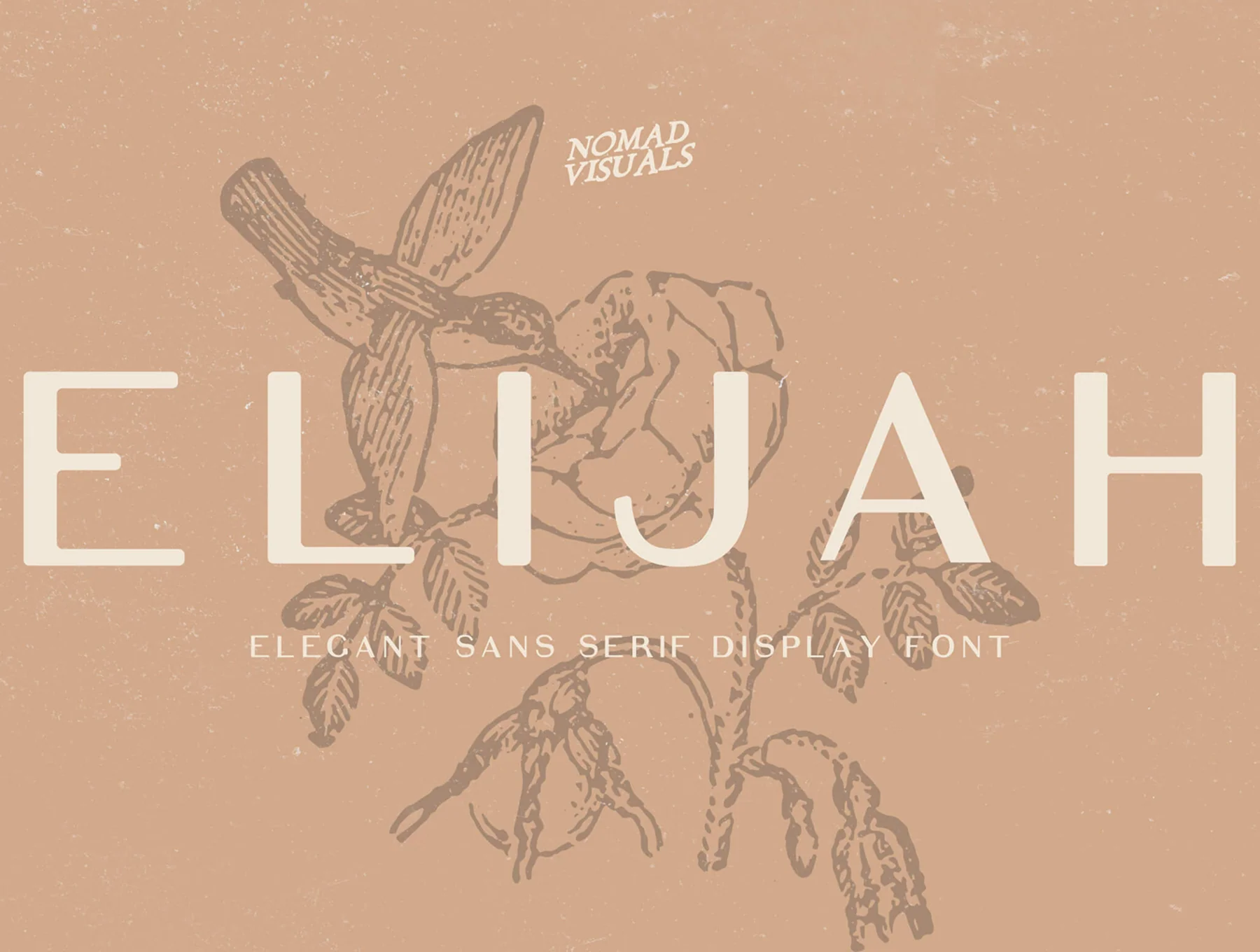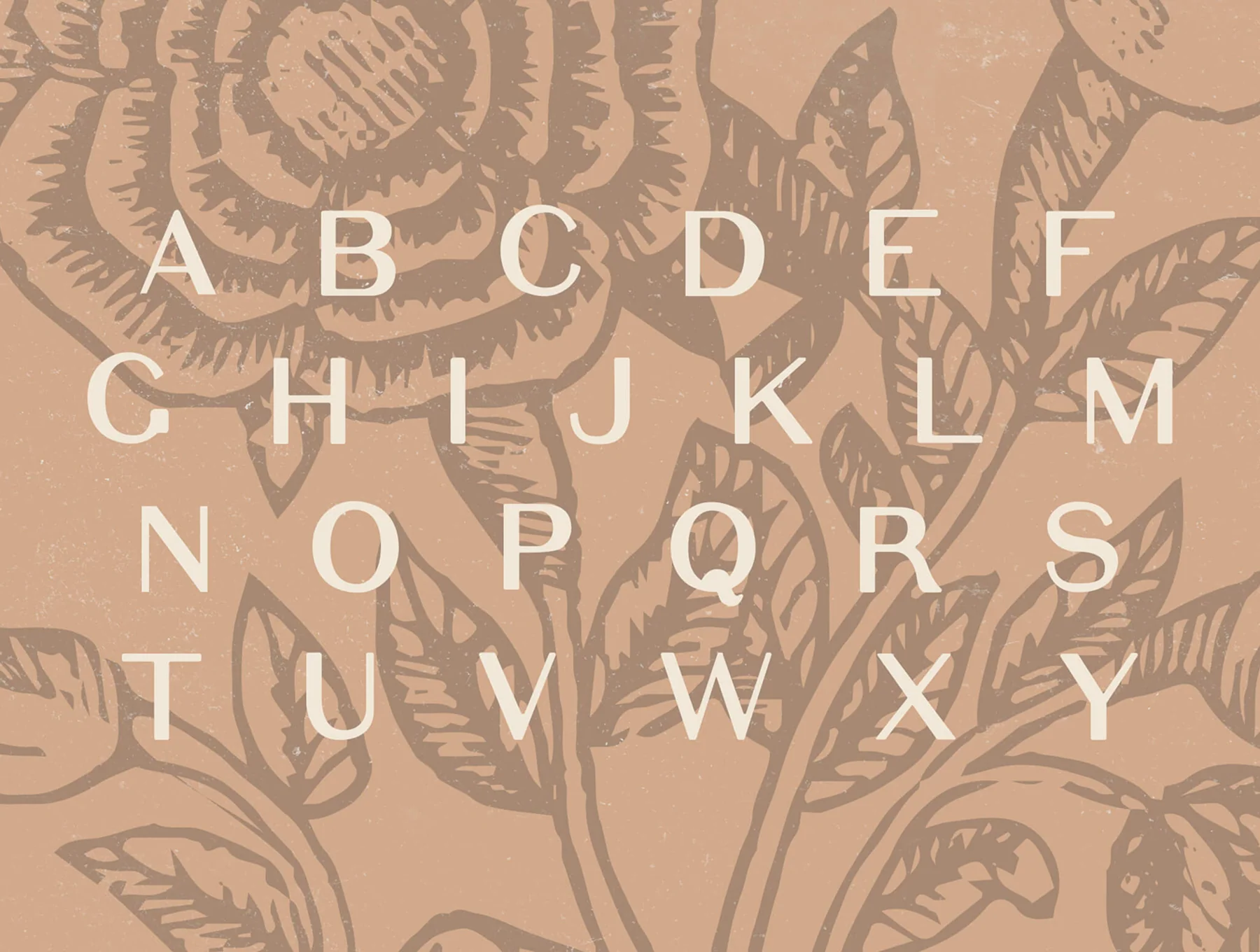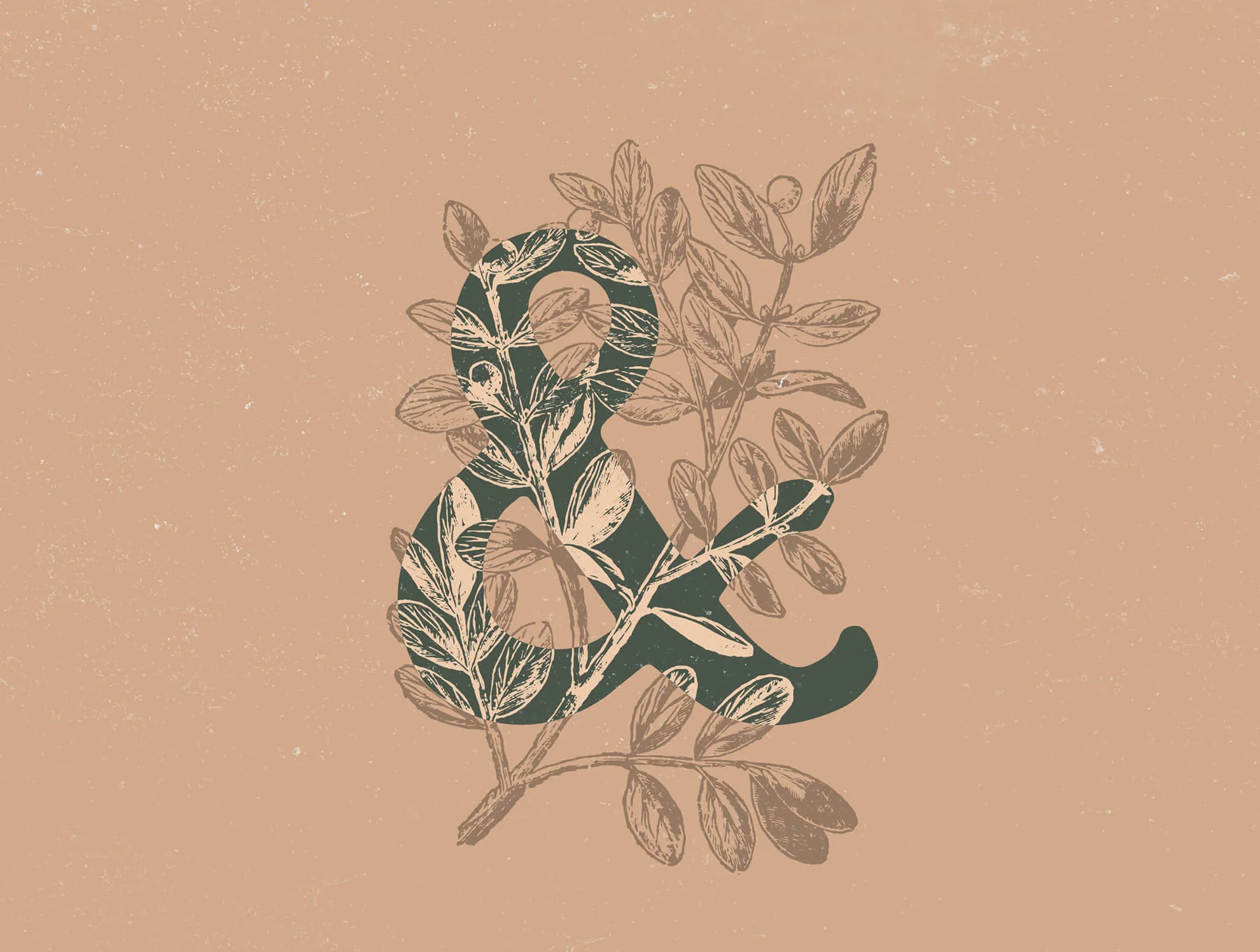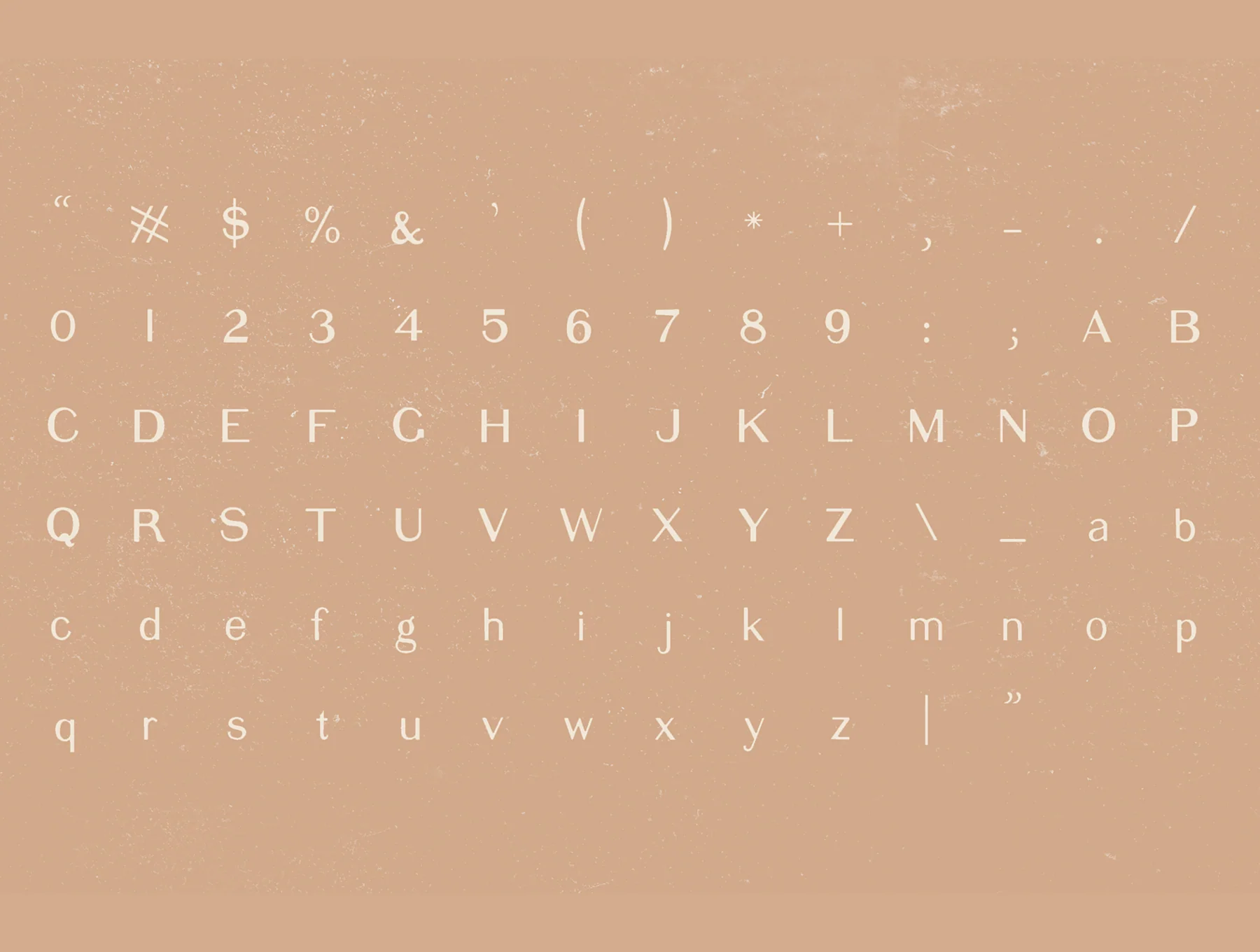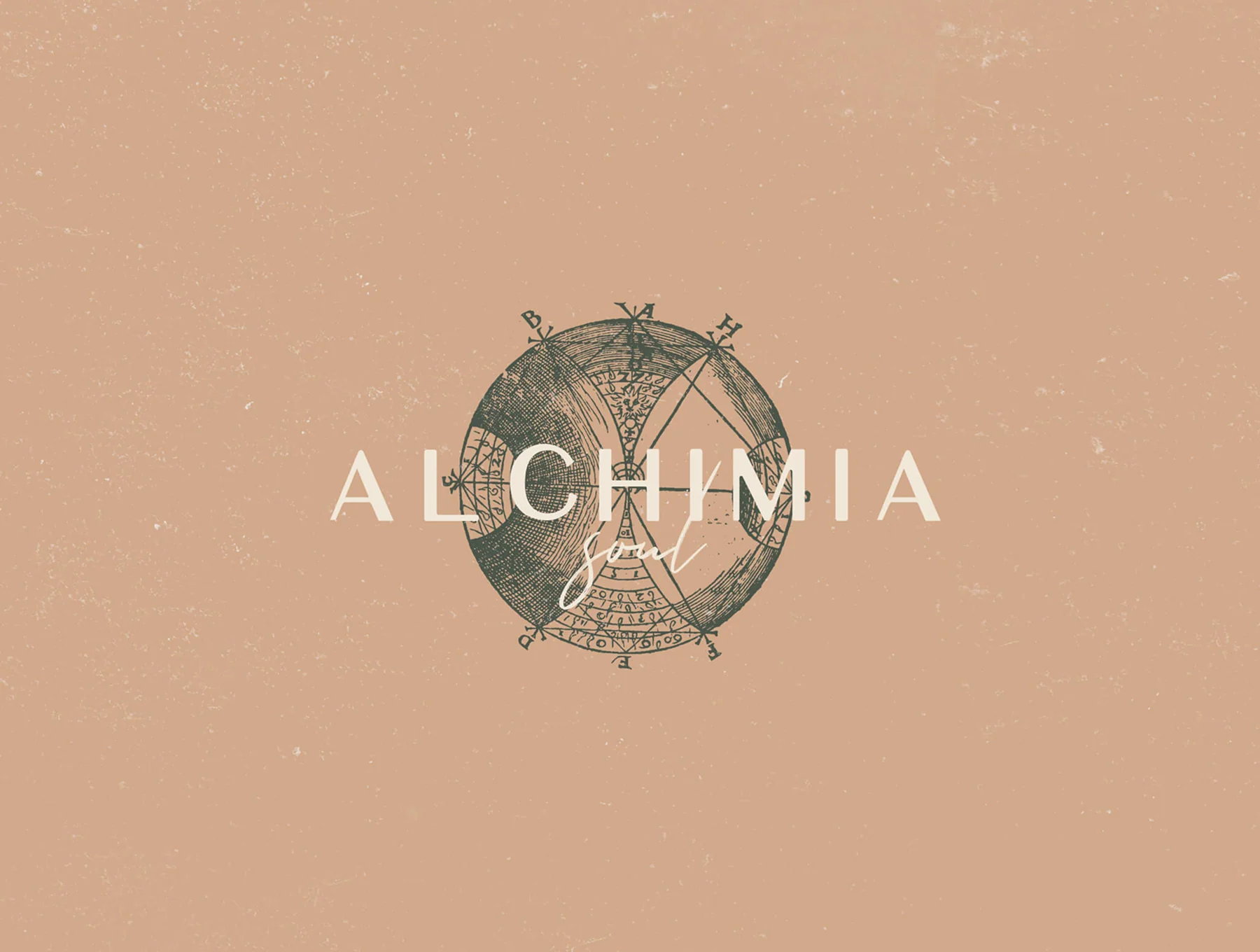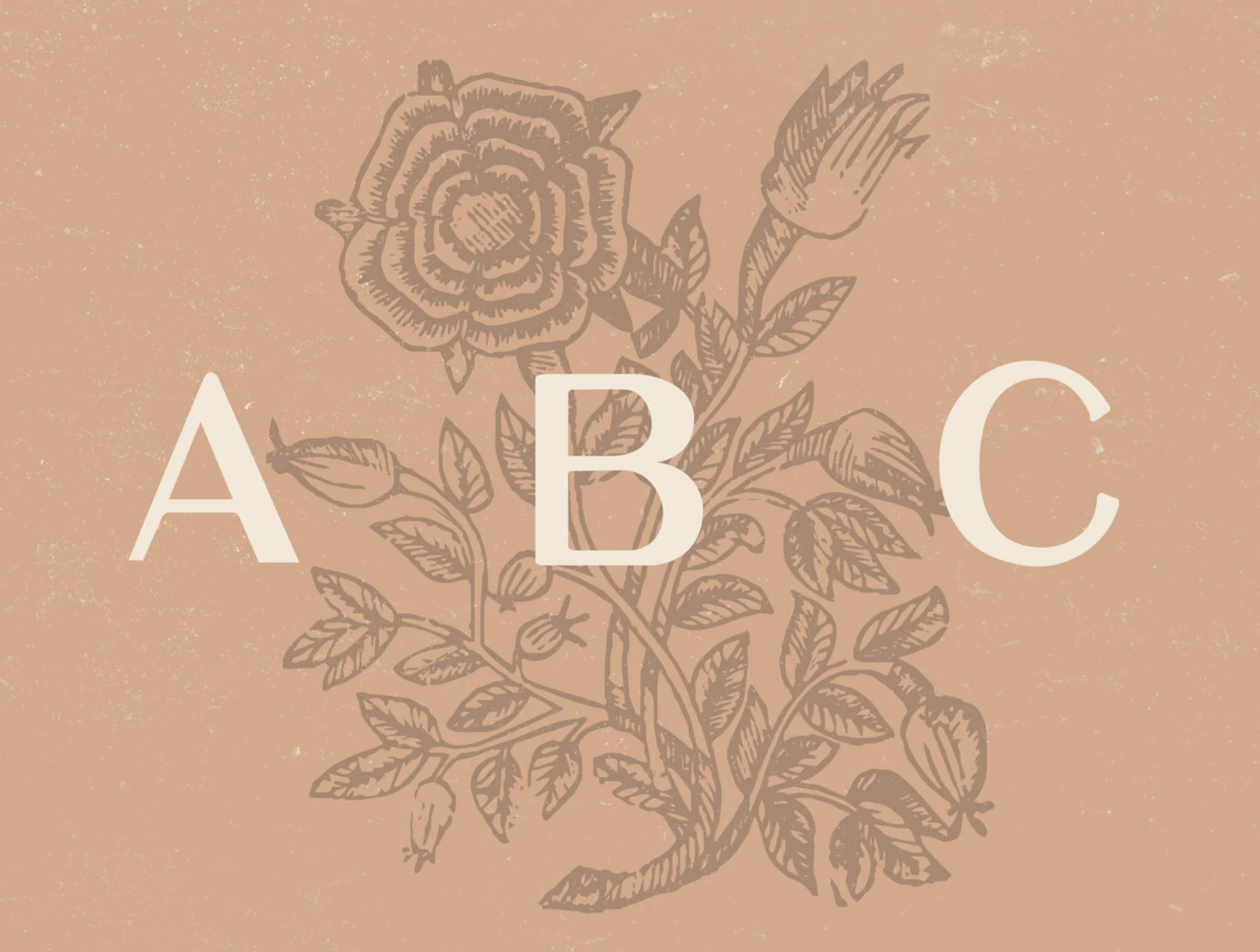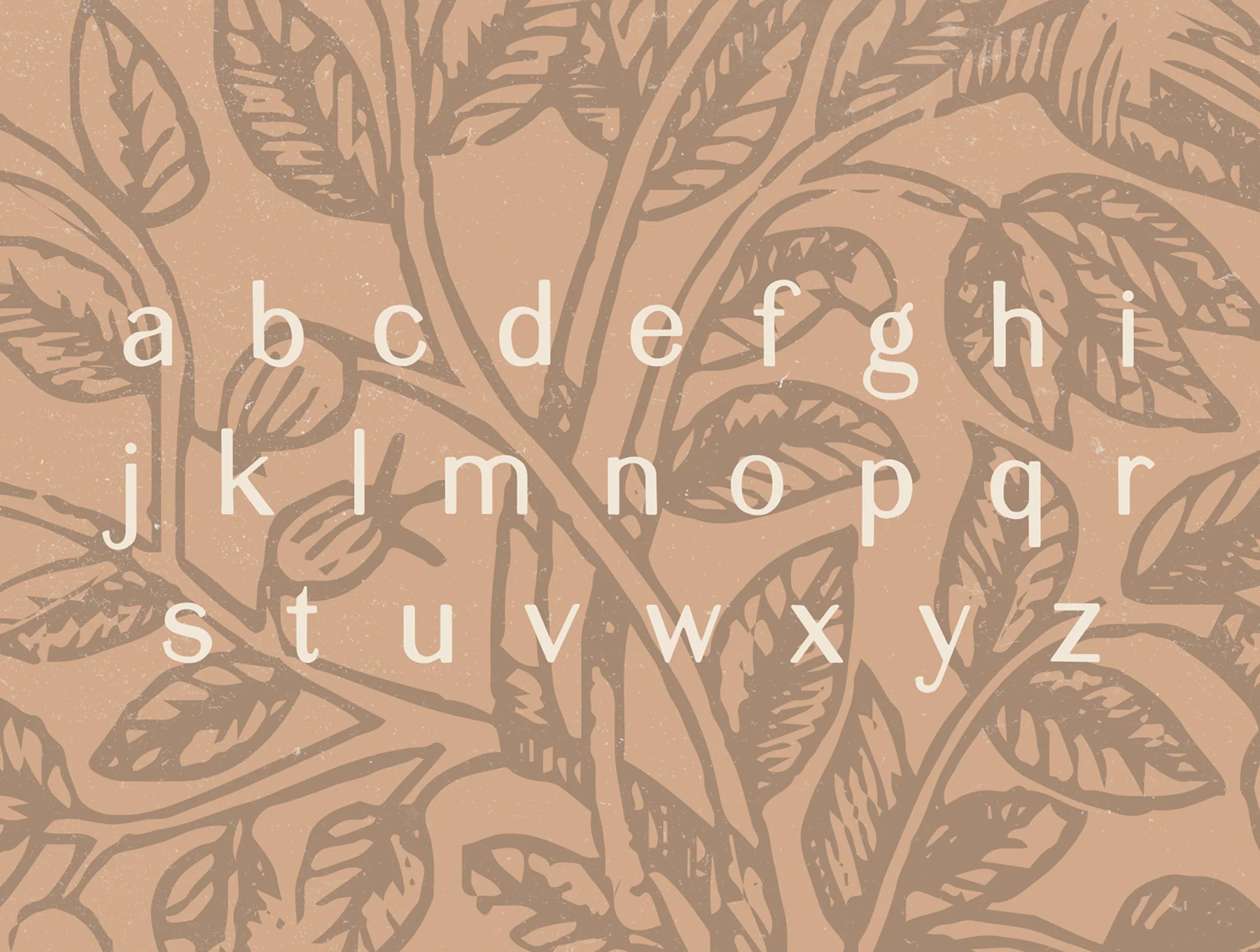
Elijah – Modern Sans Serif Display Font
A sleek, sophisticated sans-serif crafted for classic, polished design.
Contemporary sans-serif with balanced proportions
Includes both uppercase and lowercase characters
Set of numerals and punctuation marks
Clear, easy-to-read construction
Elijah is a contemporary sans-serif typeface featuring harmonious curves and a clean, minimalist look. Perfect for logos, brand identities, editorial designs, and polished print work, its fluid geometry and airy spacing deliver elegance and readability in both titles and extended text.